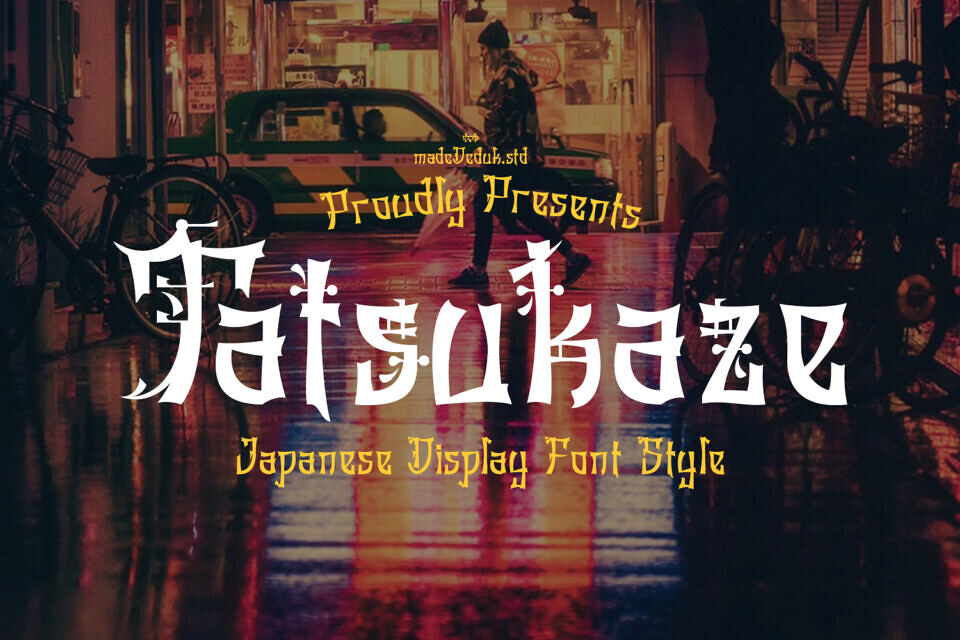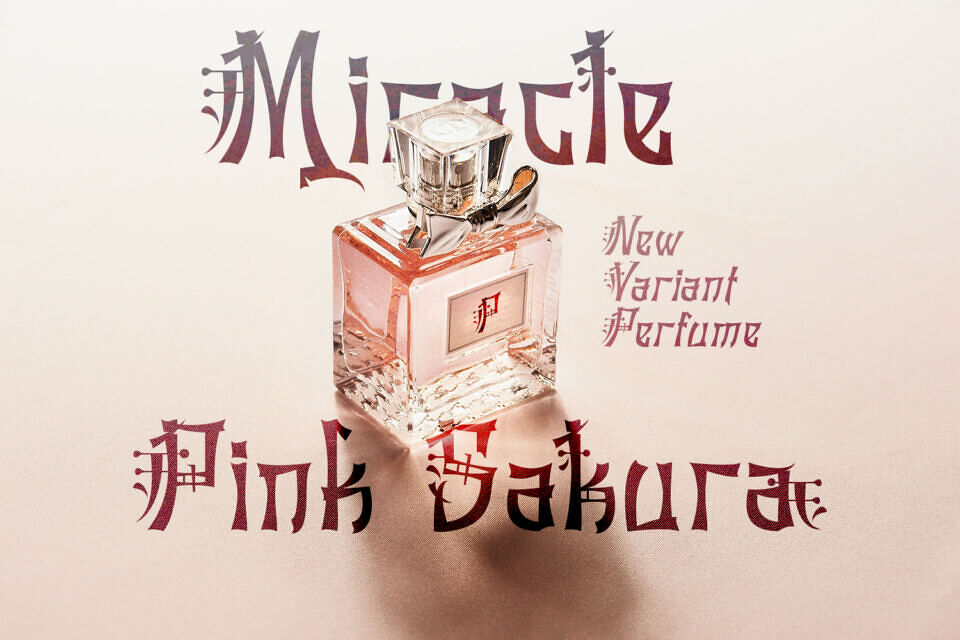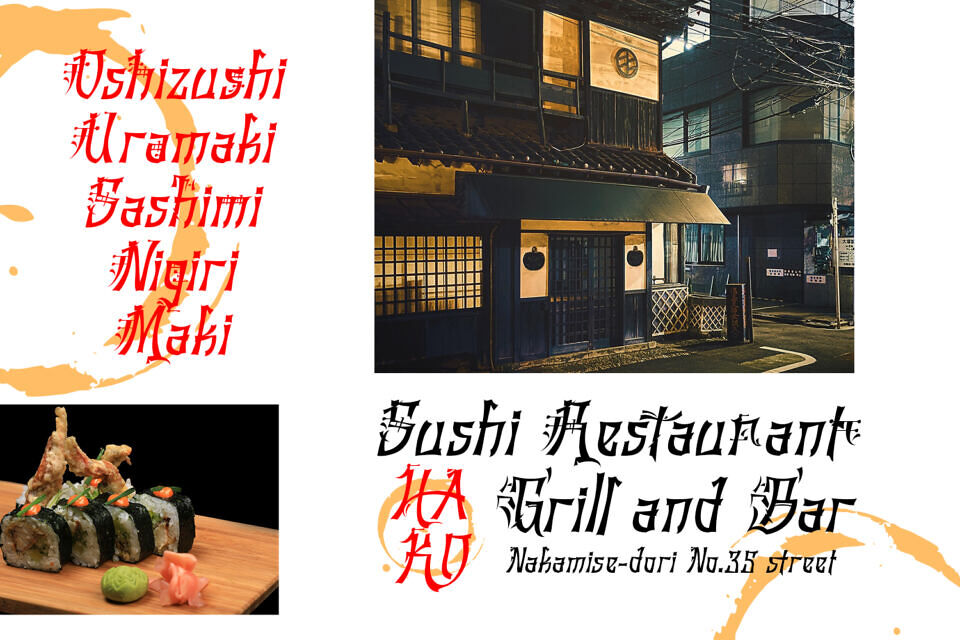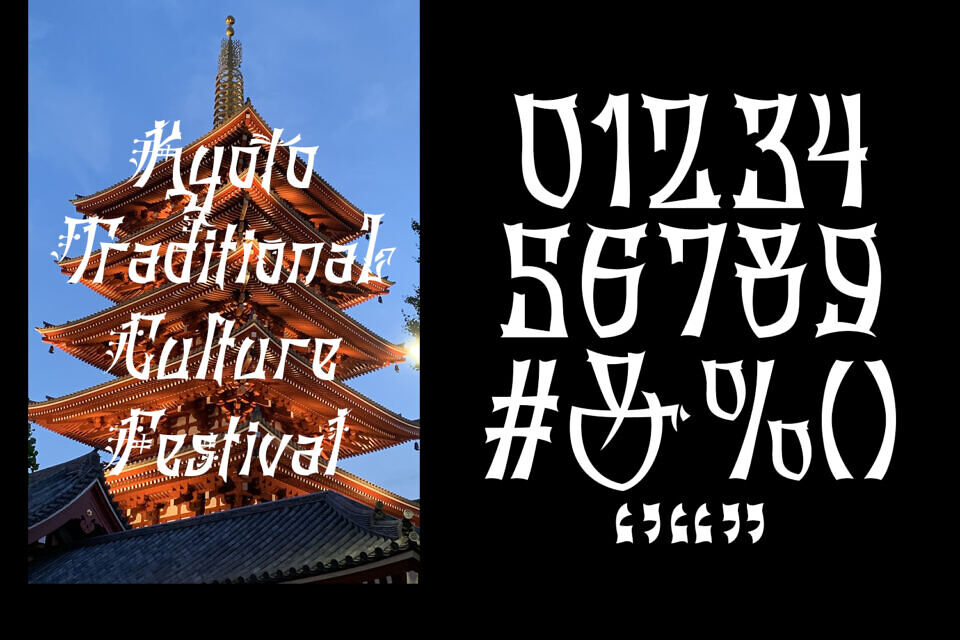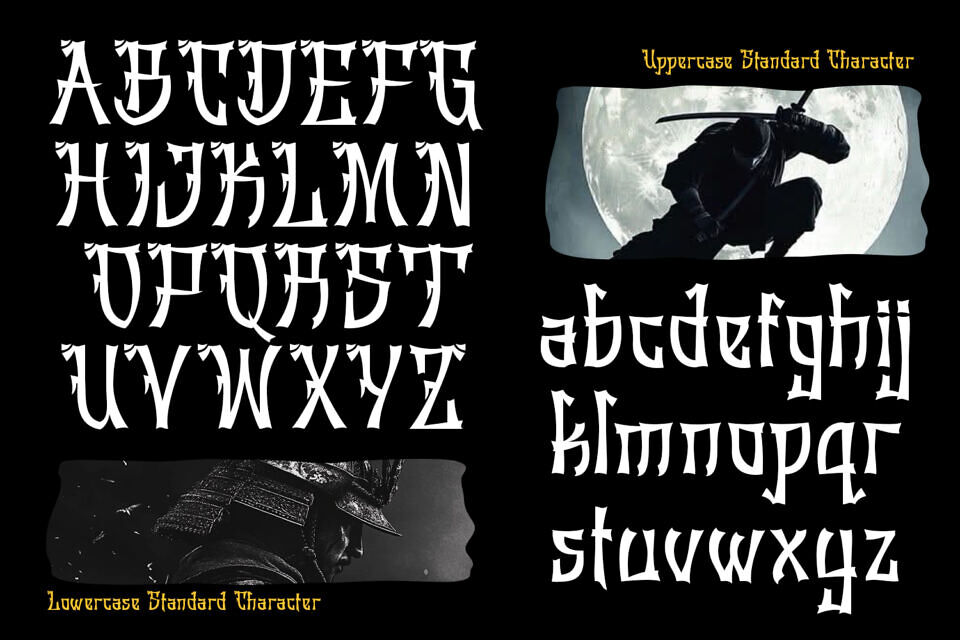
Tatsukaze Font
Meet Tatsukaze, a Japanese font that blends traditional charm with refined elegance, offering a unique and artistic take on classic characters with a distinctly Japanese flair. The letterforms are sharp, decorative, and richly detailed, creating a dramatic and distinctive look.
Each curve of the letterform feels like a vibrant calligraphic stroke, creating a unique and expressive visual feel. This font is suitable for logos, poster titles, creative designs, and visual works themed around fantasy and Japanese culture.